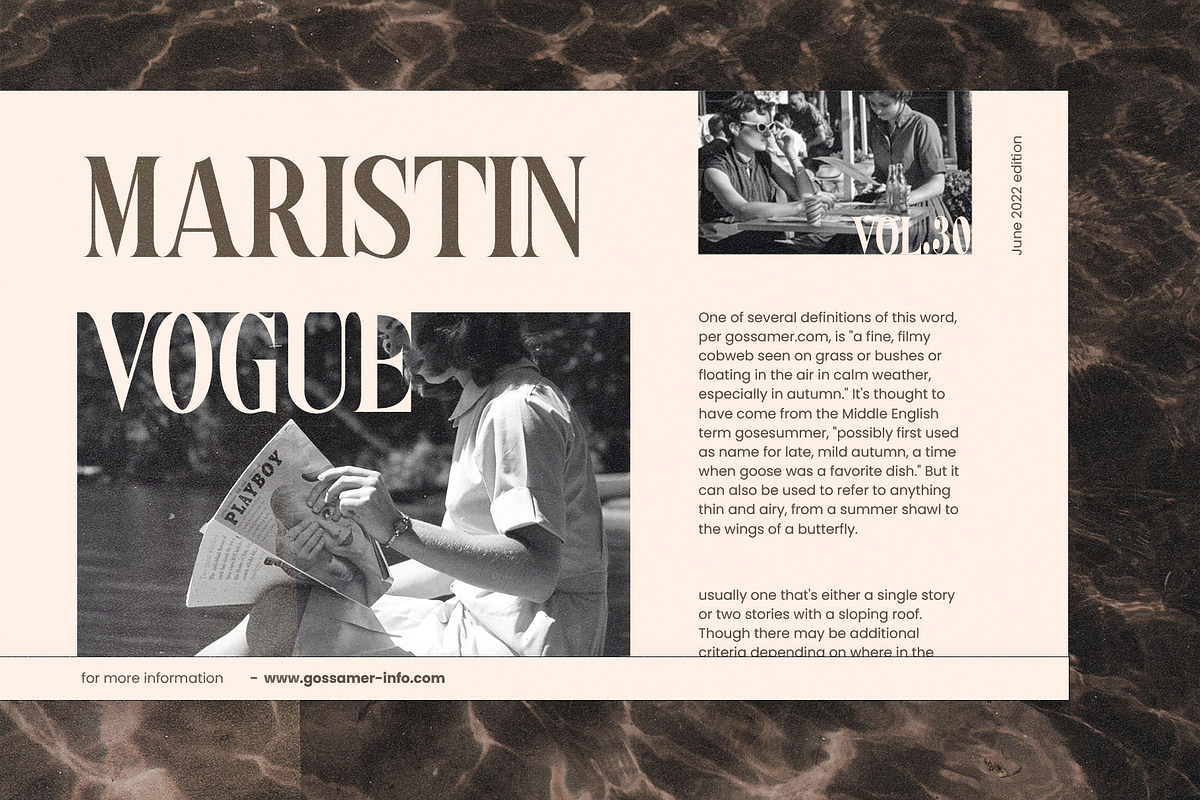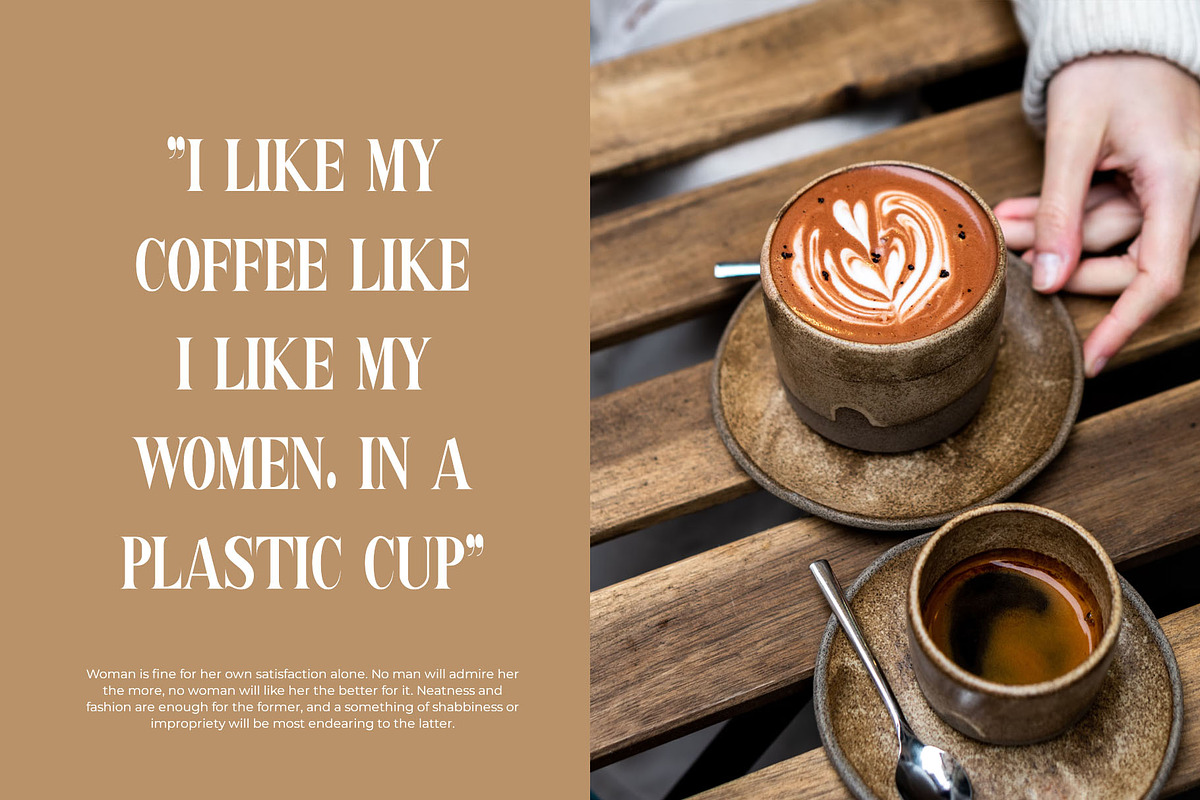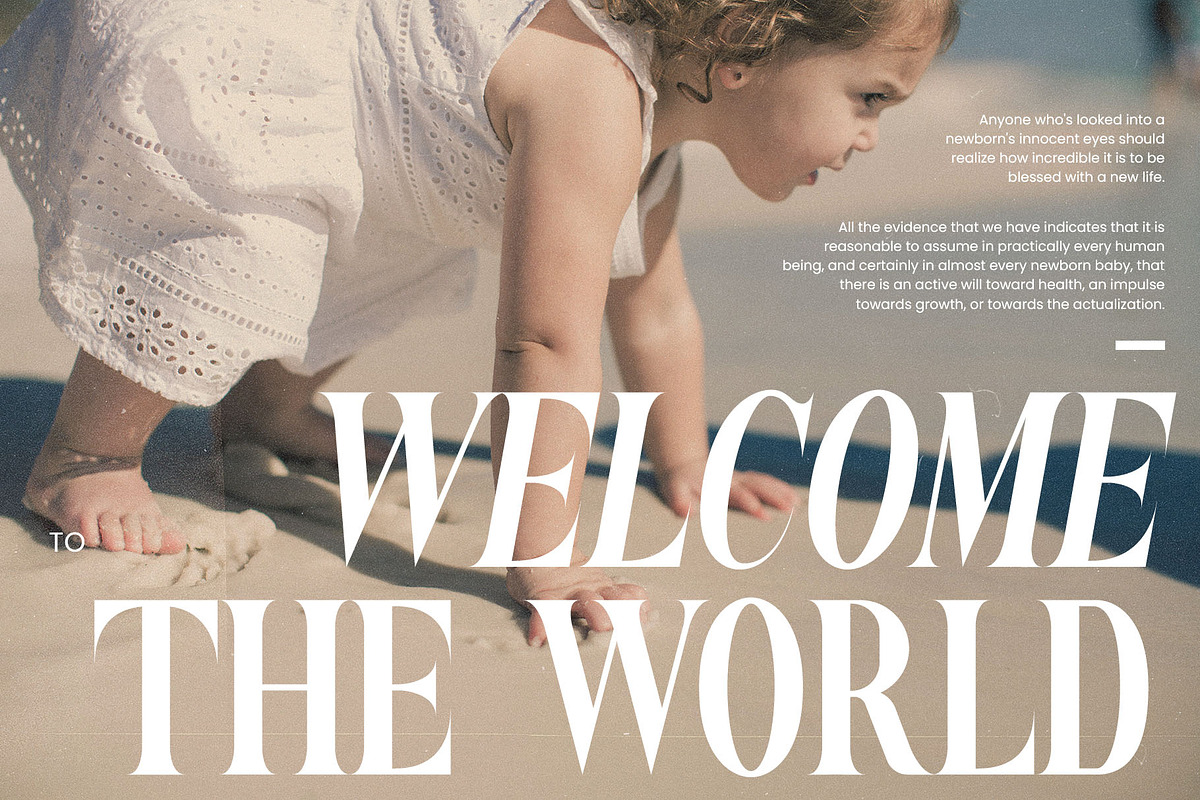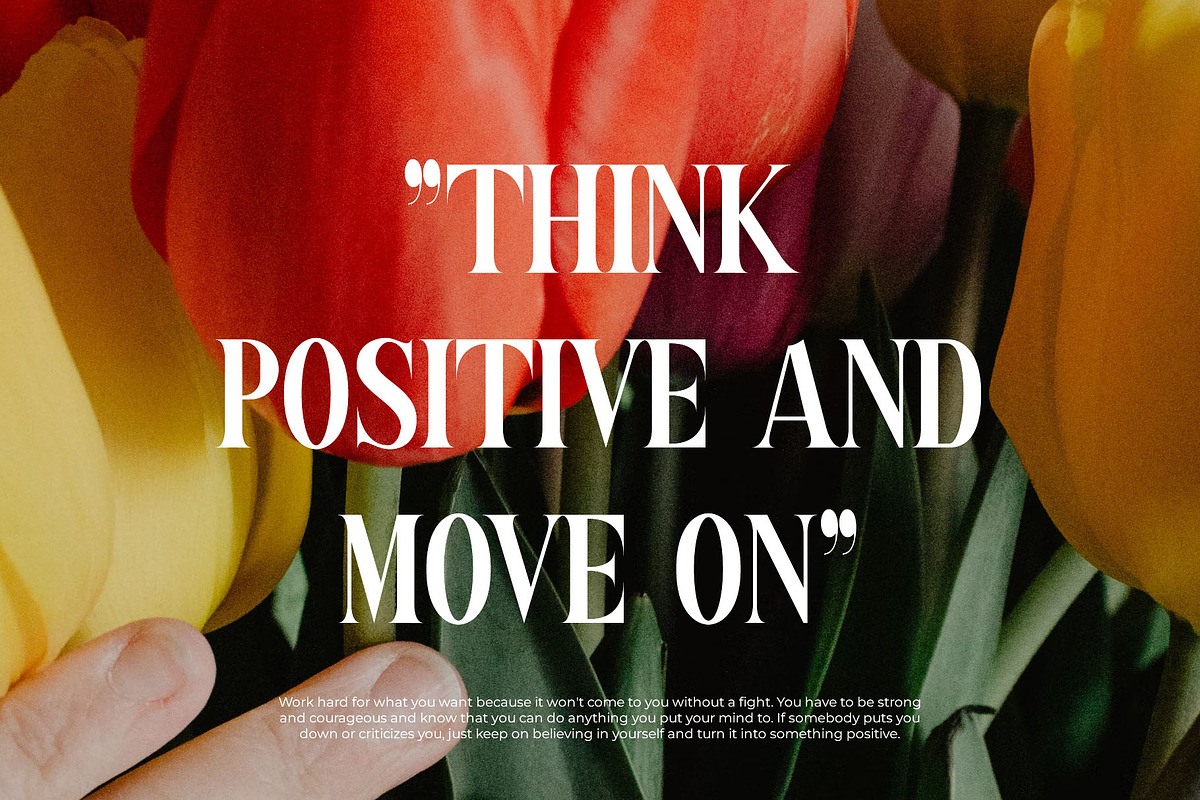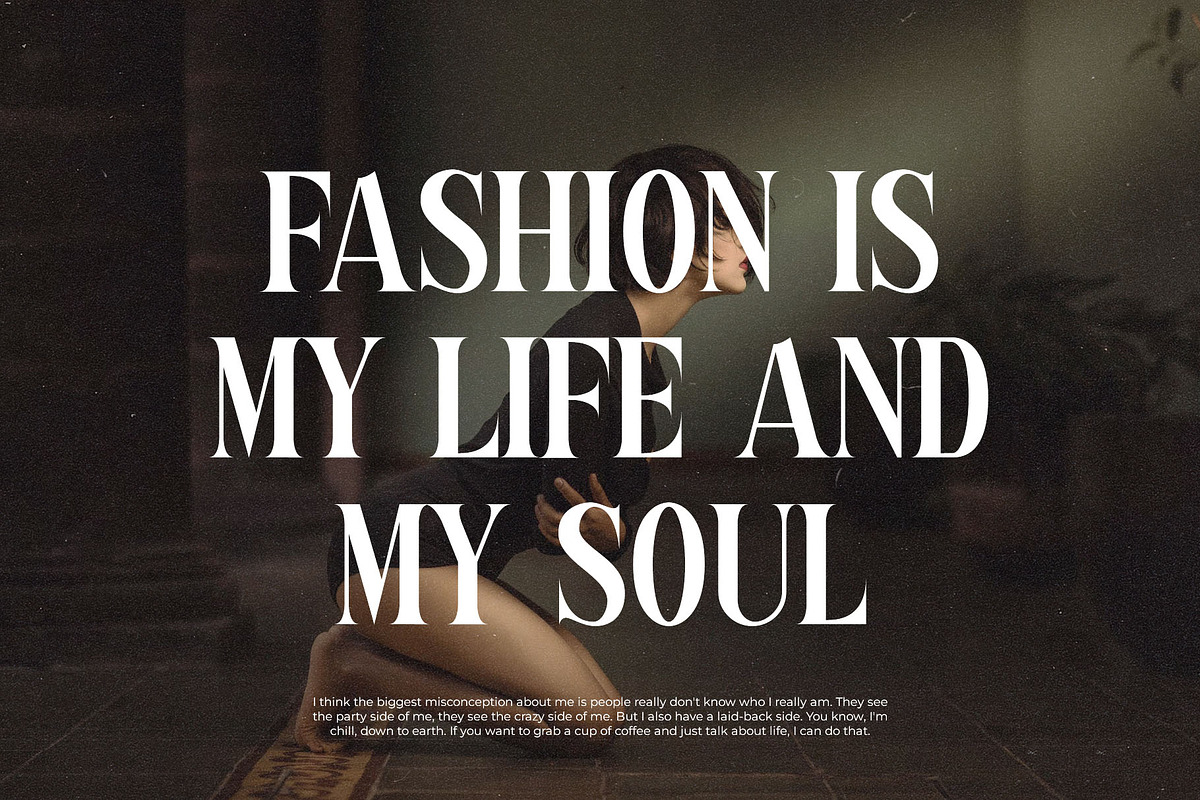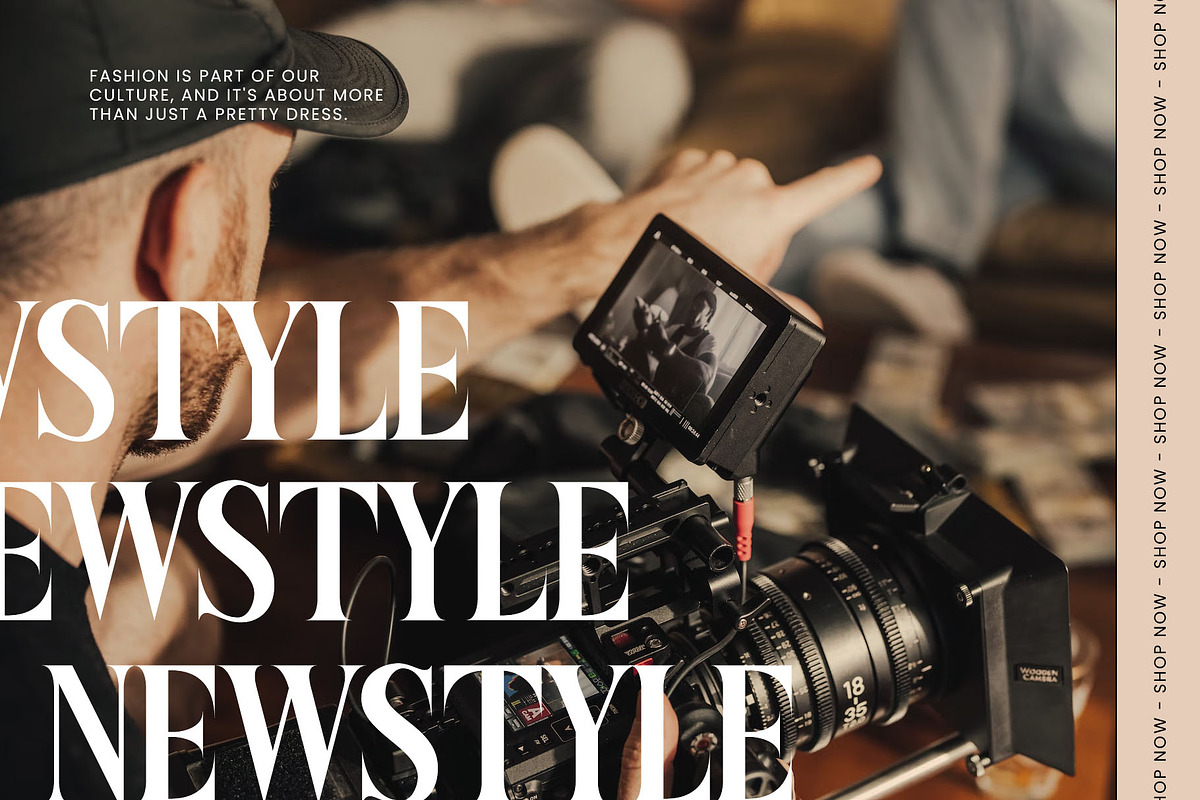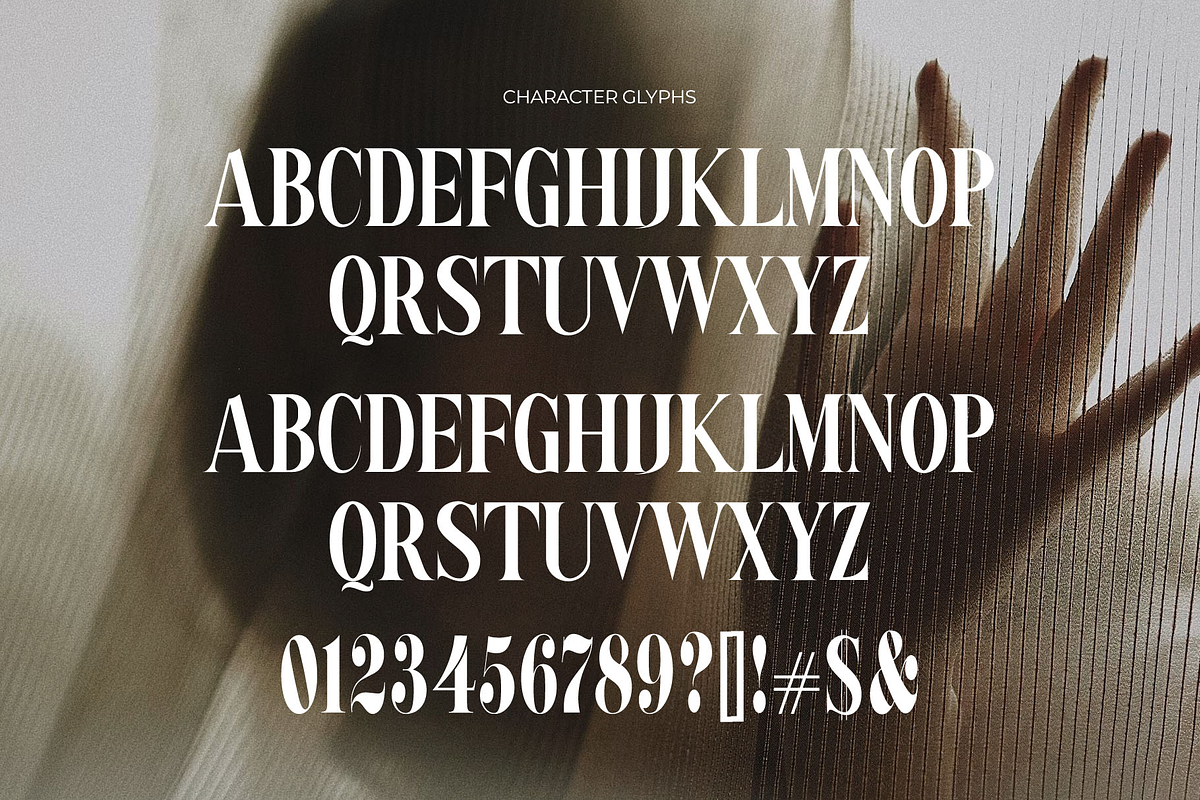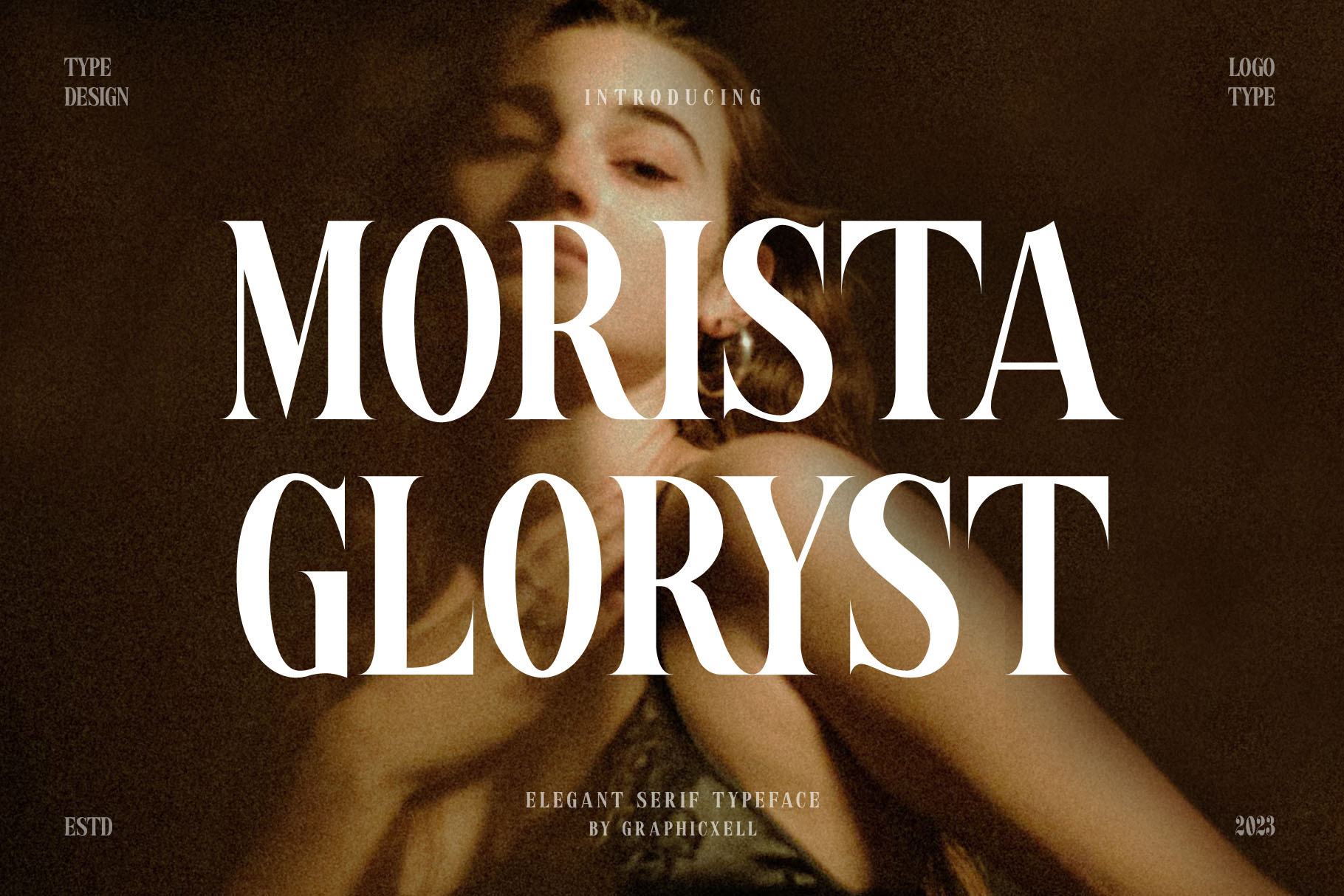
Morista Gloryst Elegant Serif Font
Morista Gloryst Elegant Serif Font inspired by the famous minimalist logo perfect for the purposes of designing templates, brochures, videos, advertising branding, logos, invitation, layout design, elegant crafting, beauty design and more.